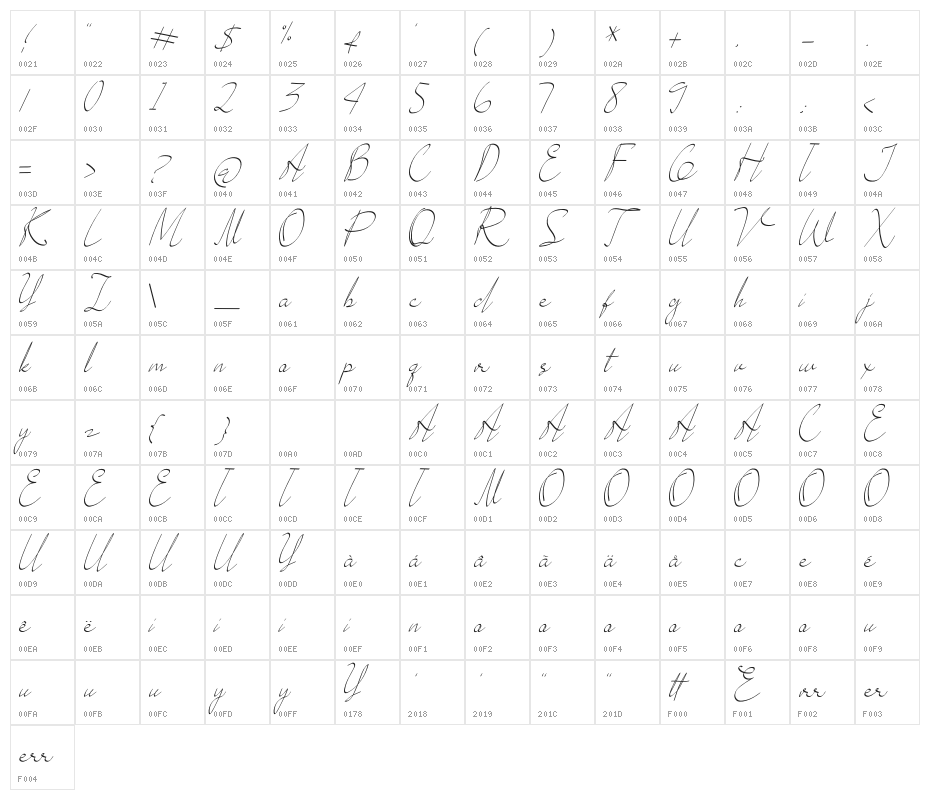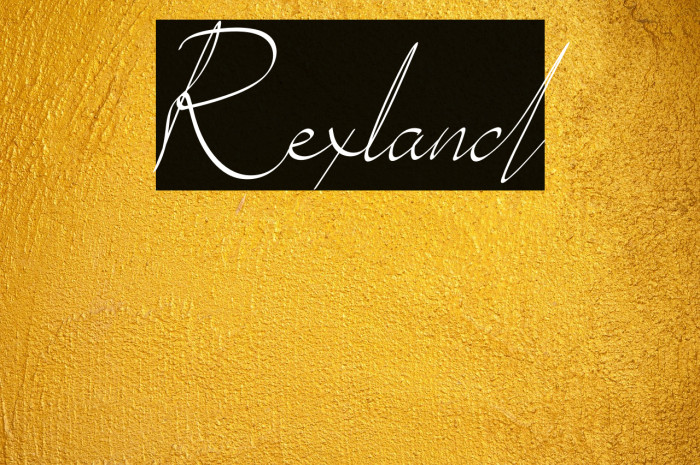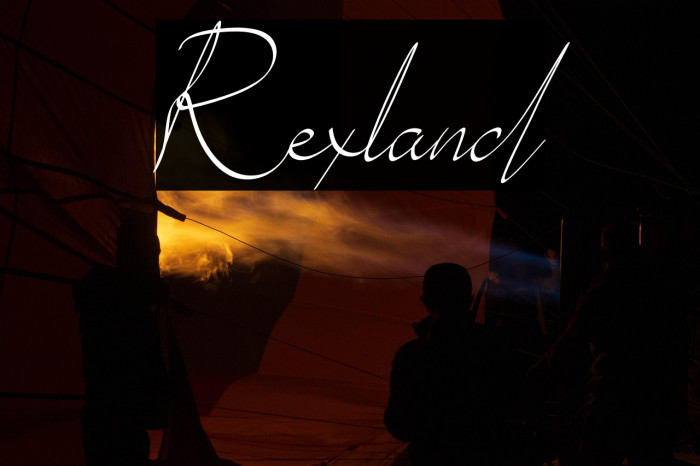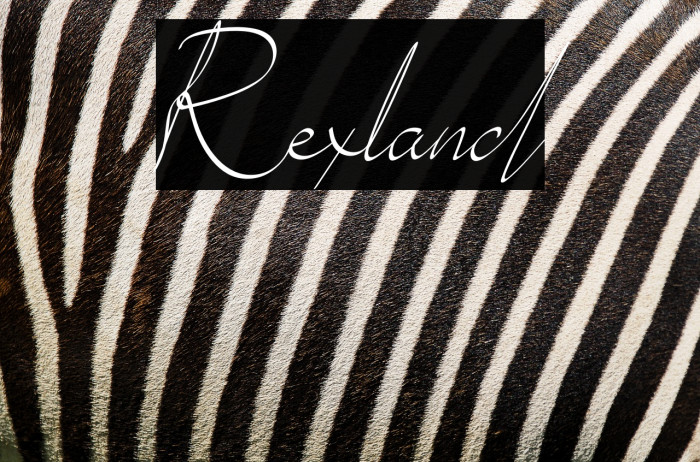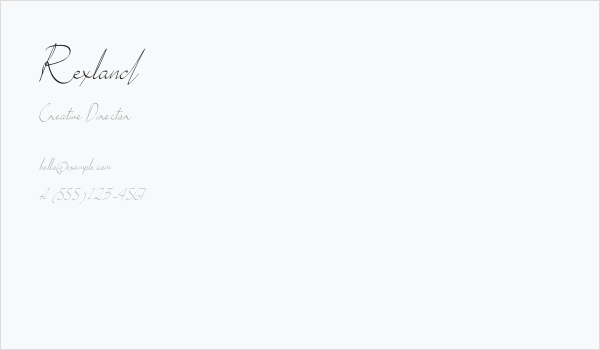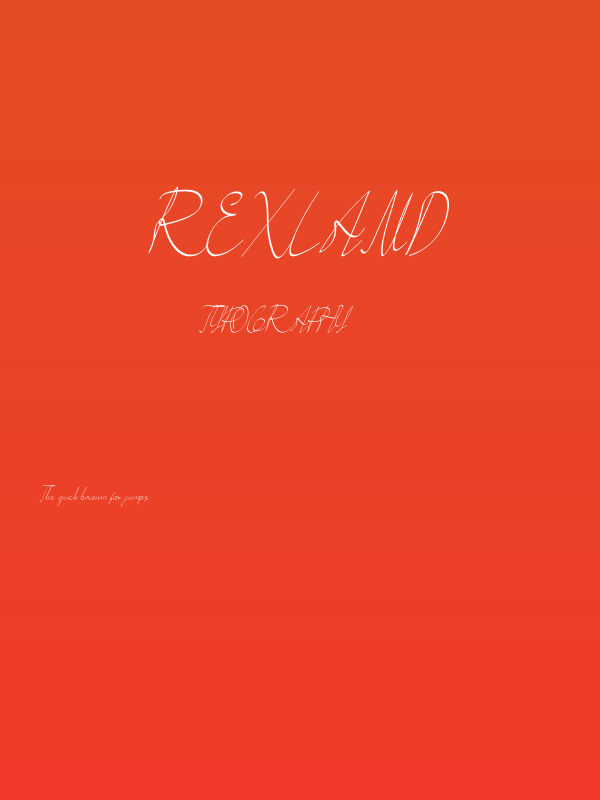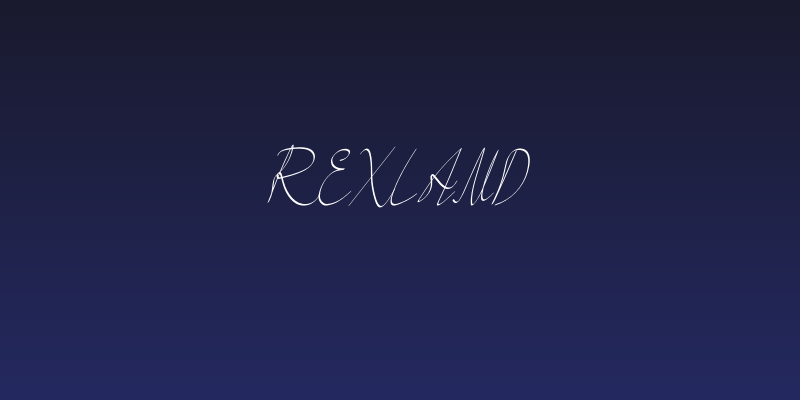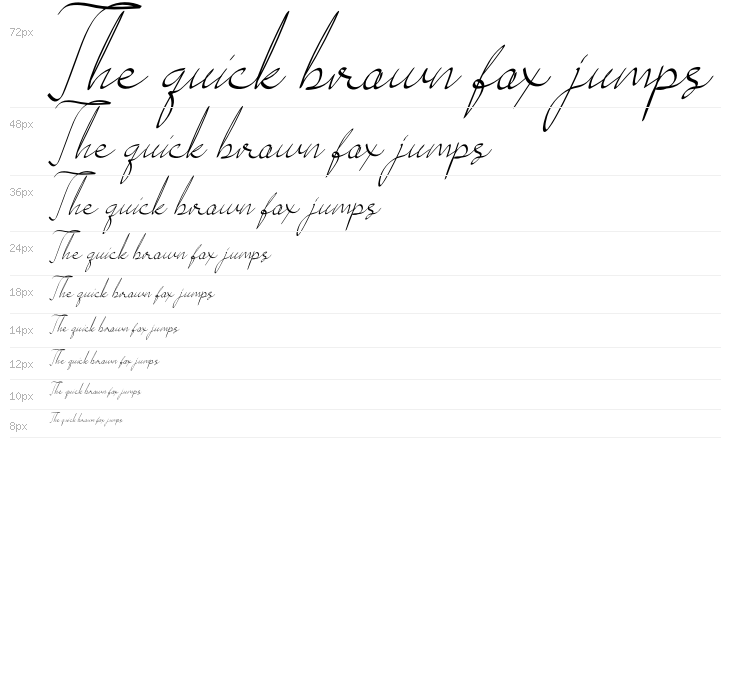
Rexland Font
| 全体的なスタイル | Elegant |
| 用途 | Headlines, Invitations, Artistic projects |
| おすすめプロジェクト | Perfect for wedding invitations, elegant branding, artistic projects, and formal stationery. |